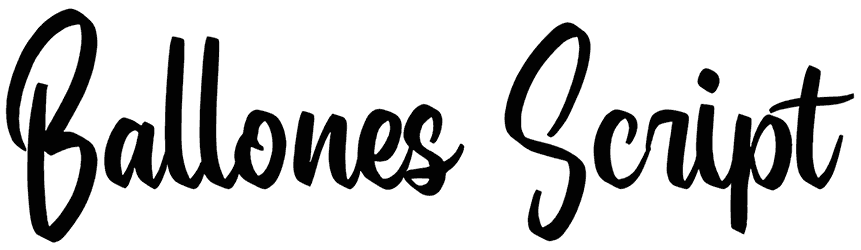
Ballones Script Font
Here we come again to go for an approachable script font mostly known as Ballones Script. This masterpiece’s characters have a soft flow and sophisticated texture, so it leads to a feeling of momentum, vitality, or gorgeousness. We offer you to pick it up for your business cards, logos, editorial projects, or invitations.